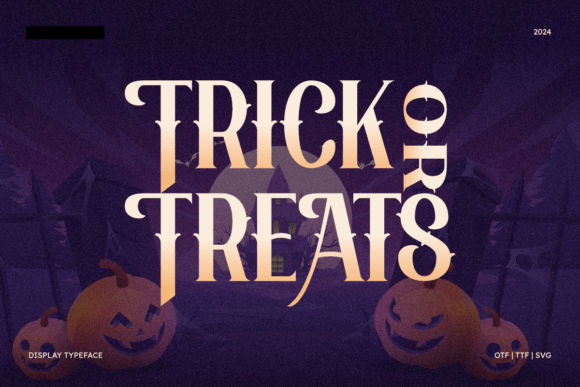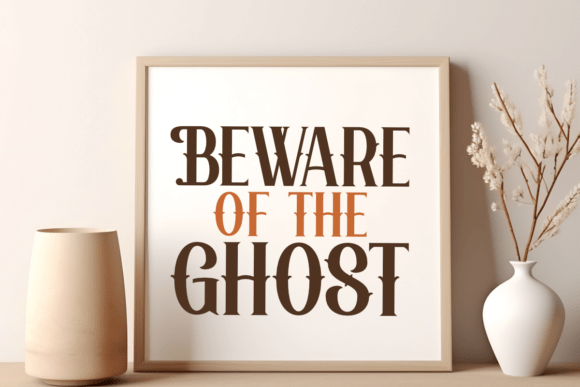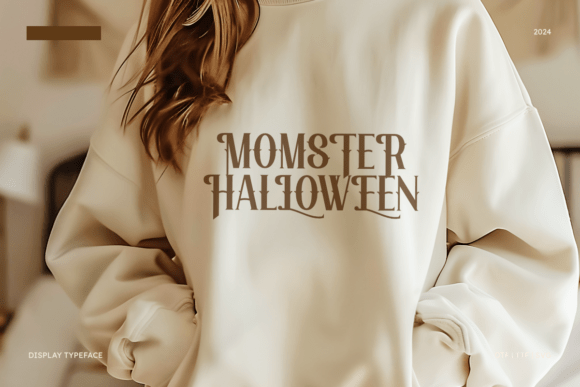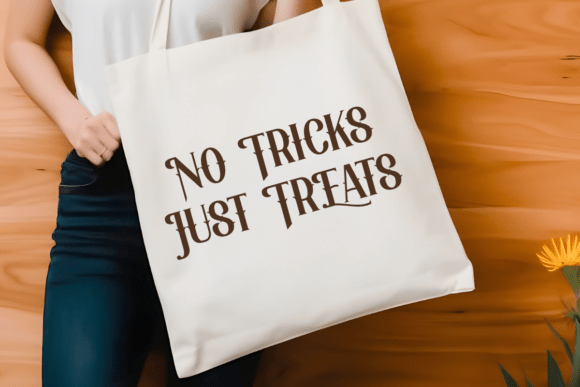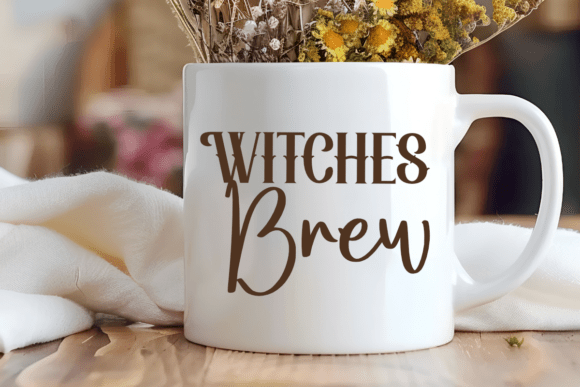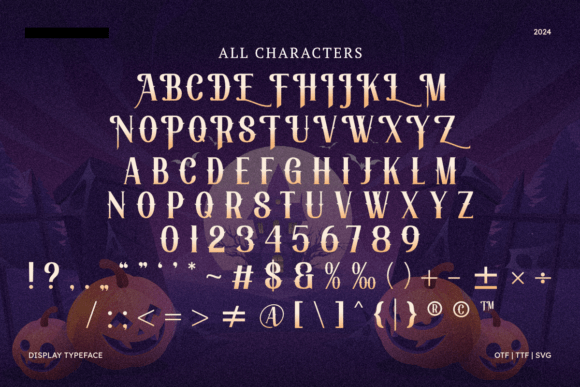
Unleash the Spookiness: A Comprehensive Guide to the Halloween Font
Halloween is just around the corner, and with it comes the excitement of creating spooky and elegant designs for various projects. Whether you’re a designer, crafter, or DIY enthusiast, you must be on the lookout for the perfect font to give your creations a haunting touch. Look no further than the Halloween Font, a spooky yet elegant font that’s perfect for a wide range of creative projects.
What is the Halloween Font?
The Halloween Font is a unique and versatile font designed specifically for Halloween-themed projects. Its elegant and spooky design makes it perfect for creating eye-catching and eerie designs that are sure to leave a lasting impression. This font is ideal for designers, crafters, and DIY enthusiasts who want to add a touch of Halloween spirit to their creations.
Perfect for Various Creative Projects
The Halloween Font is perfect for a wide range of creative projects, including:
- Apparel: Design spooky t-shirts, hoodies, and hats that are perfect for Halloween.
- DIY and Crafts: Add a touch of elegance and spookiness to your DIY projects, such as pumpkins, decorations, and gift tags.
- Posters: Create eye-catching posters for Halloween events, parties, or haunted houses.
- Vinyl: Design vinyl decals and stickers for laptops, water bottles, or any other surface.
- Stickers: Create spooky stickers for kids or adults to enjoy.
- Titles and Labels: Use the Halloween Font to create titles and labels for your projects, such as photo albums or scrapbooks.
- Logos: Design a spooky logo for your business or brand.
- Banners: Create a haunting banner for your website, social media, or event.
- Social Media: Use the Halloween Font to create spooky social media posts, graphics, or overlays.
- Overlays: Add a touch of spookiness to your videos or live streams with Halloween-themed overlays.
- Cricut and Canva: Use the Halloween Font with Cricut or Canva to create custom projects, such as iron-on designs or paper crafts.
Why Choose the Halloween Font?
The Halloween Font is a popular choice among designers and crafters due to its unique and versatile design. Here are some reasons why you should choose this font for your projects:
- Unique Design: The Halloween Font has a distinctive design that’s perfect for Halloween-themed projects.
- Elegant and Spooky: This font strikes the perfect balance between elegance and spookiness, making it suitable for a wide range of projects.
- Versatile: The Halloween Font can be used for various creative projects, from apparel to social media graphics.
- Easy to Read: Despite its spooky design, the Halloween Font is easy to read, making it perfect for titles, labels, and other text-based projects.
Tips for Using the Halloween Font
Here are some tips for using the Halloween Font in your projects:
- Experiment with Colors: Try pairing the Halloween Font with different colors to create a unique and eye-catching design.
- Mix and Match: Combine the Halloween Font with other fonts or graphics to create a distinctive design.
- Pay Attention to Size: Make sure to adjust the font size according to your project’s requirements.
- Use it Sparingly: Use the Halloween Font sparingly to avoid overwhelming your design.
The Halloween Font is a versatile and elegant font that’s perfect for a wide range of creative projects. Its unique design makes it an excellent choice for designers, crafters, and DIY enthusiasts who want to add a touch of Halloween spirit to their creations. With its ease of use and flexibility, the Halloween Font is sure to become a staple in your design toolkit. So, unleash your creativity and get spooky with the Halloween Font!